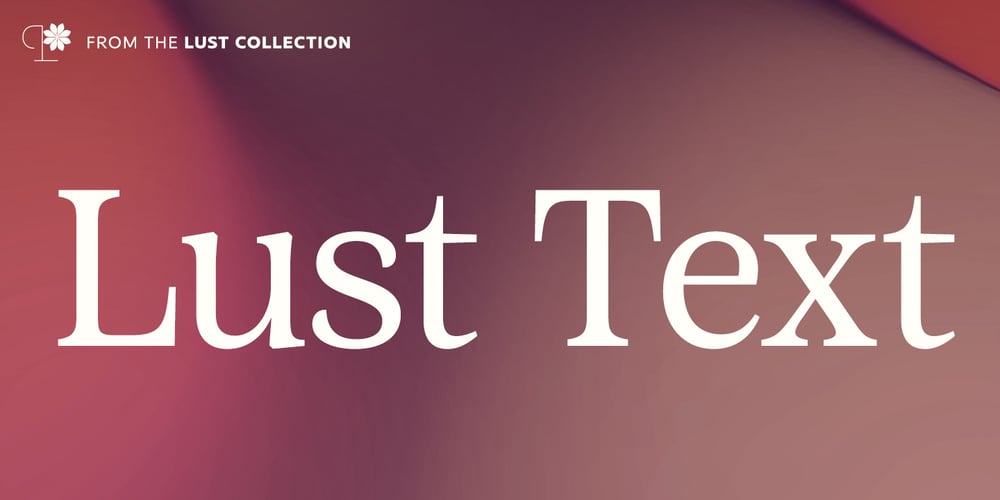
Lust Text Font Family was designed by Neil Summerour and published by Positype. Lust Text contains 10 styles and family package options. Yes, finally. This one took the most time and the most restarting. Years went into imagining what Lust Text should look like and how it should structurally behave in order to truly improve upon a setting that includes any of the Lust typefaces. I approached it as much from the side of the type designer, as I did a potential user. The flow, the warmth, the personality needed to be there, but all of the excess had to be removed responsibly. In the process, and in need of inspiration, I looked backward to historical artifacts and precedent. In each early Lust Text approach, the solution was lackluster and/or vanilla and not actually a ‘Lust’ typeface. The exercise was not in vain though. By exploring past examples, I found my footing drawing for media now and how it might be used later—all the while, producing seamless, elegant curves and restrained indulgence (that sounds almost silly to say, but I like it).The Lust Collection is the culmination of 5 years of exploration and development, and I am very excited to share it with everyone. When the original Lust was first conceived in 2010 and released a year and half later, I had planned for a Script and a Sans to accompany it. The Script was released about a year later, but I paused the Sans. The primary reason was the amount of feedback and requests I was receiving for alternate versions, expansions, and ‘hey, have you considered making?’ and so on. I listen to my customers and what they are needing… and besides, I was stalling with the Sans. Like Optima and other earlier high-contrast sans, they are difficult to deliver responsibly without suffering from ill-conceived excess or timidity. The new Lust Collection aggregates all of that past customer feedback and distills it into 6 separate families, each adhering to the original Lust precept of exercises in indulgence and each based in large part on the original 2010 exemplars produced for Lust. I just hate that it took so long to deliver, but better right, than rushed, I imagine.